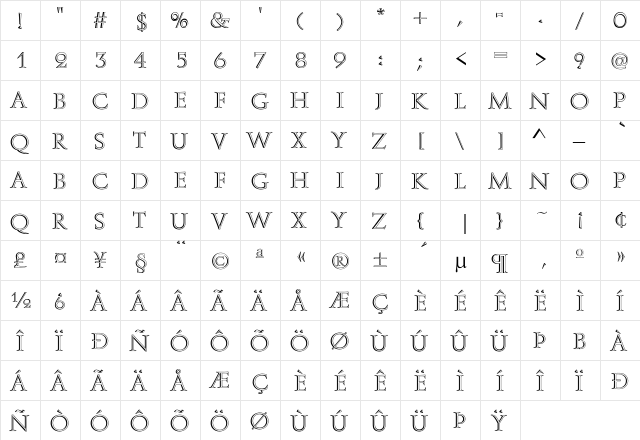
CaesarOpen Regular
Design Context for CaesarOpen Typeface
CaesarOpen offers clean, dependable letterforms without strong stylistic allegiance, making it a practical choice for designers who need flexibility.